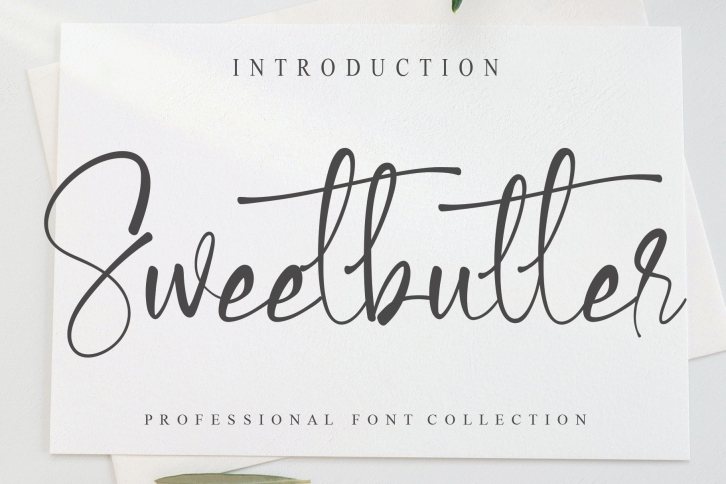
Sweetbutter is a great font that was designed by creativewhitee. Imagine the amount of combinations you can create using this font! The archive is 1.47 MB and it was released on March 15, 2021. Sweetbutter looks beautiful on wedding invitations, greeting cards, logos, posters, labels, t-shirt designs, logos, business cards and is perfect for use in ink or watercolor works, fashion, magazines, packaging and food menus, children's books and more!